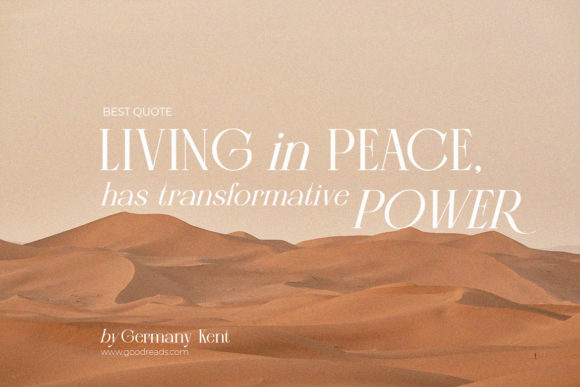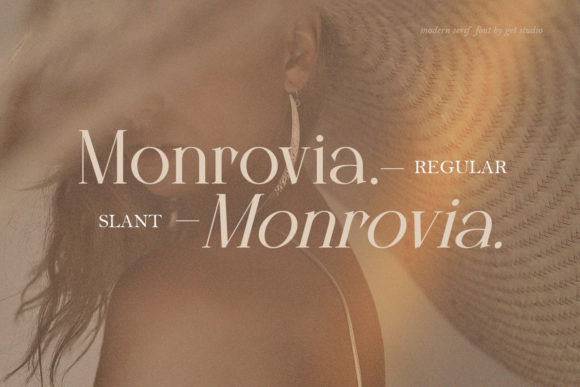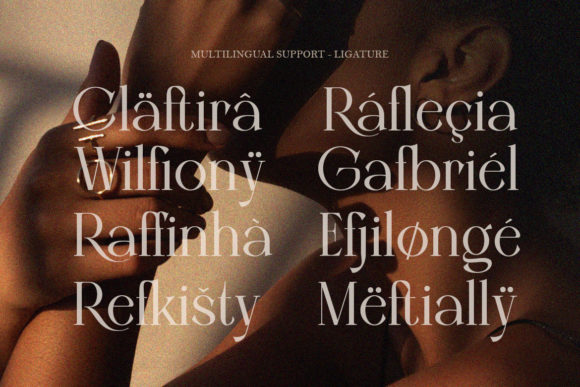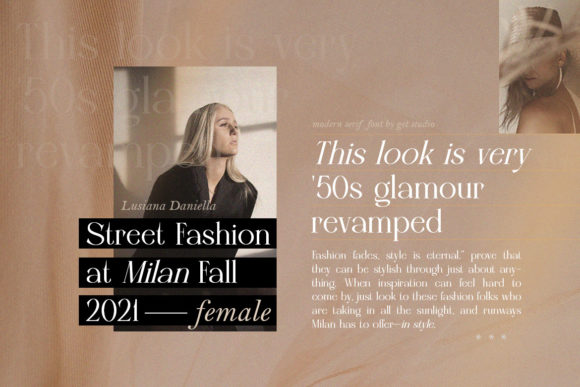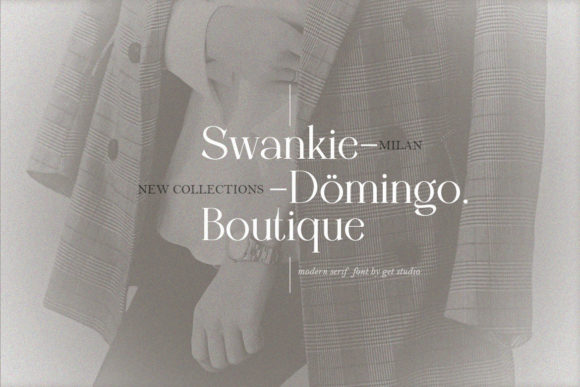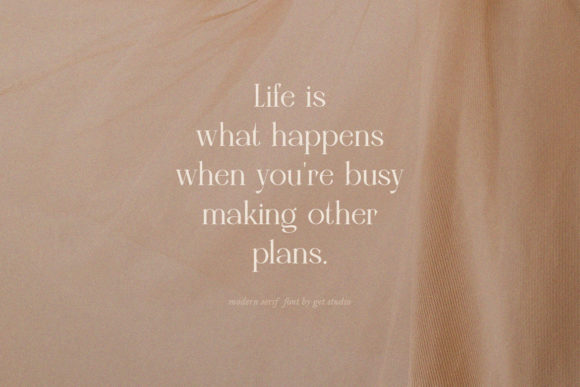
Introduction to Monrovia Font Font
Fonts play a crucial role in design, and the Monrovia Font font is a typeface that brings both character and versatility to any project. Whether you’re working on a branding project, a website, or a print design, the Monrovia Font font offers a unique style that can elevate your work.
Monrovia is an elegant and modern serif font.
It looks beautiful on a variety of designs requiring a personalized style, such as wedding invitations, thank you cards, weddings, greeting cards, logos and so on .
Key Features of Monrovia Font Font
Why Choose Monrovia Font Font?
The Monrovia Font font is more than just a typeface – it’s a design tool that helps you communicate your message with style and clarity. Its unique character set and versatile design make it suitable for a wide range of applications, from elegant invitations to bold headlines.
With its carefully crafted letterforms and balanced proportions, the Monrovia Font font ensures readability and visual appeal across all mediums.
What makes Monrovia Font font special?
The Monrovia Font font stands out with its unique design, exceptional readability, and versatility across various design applications.